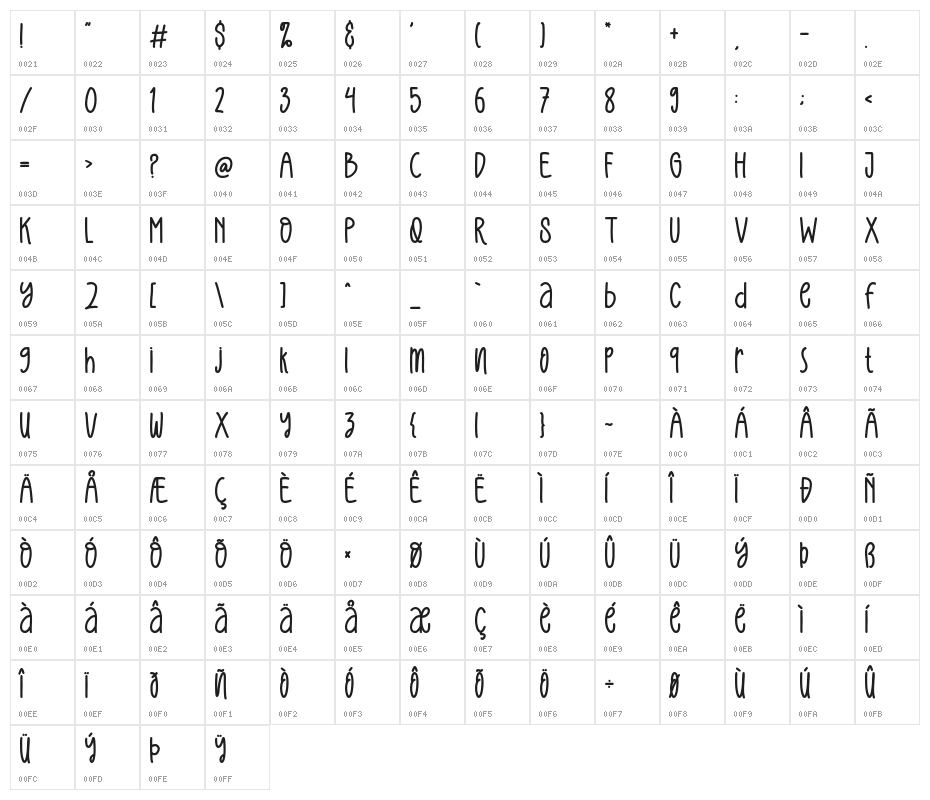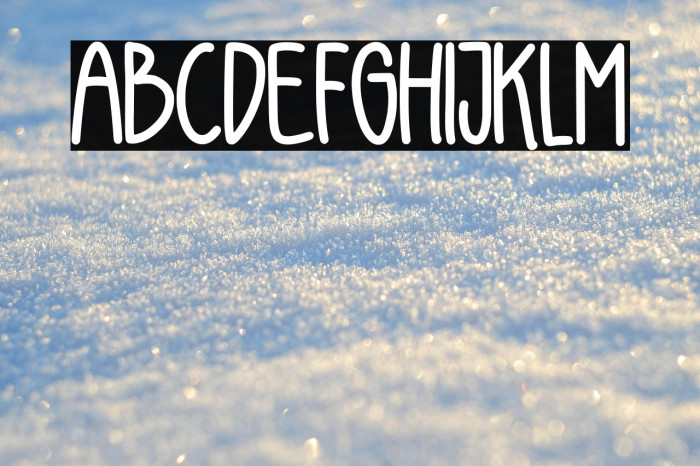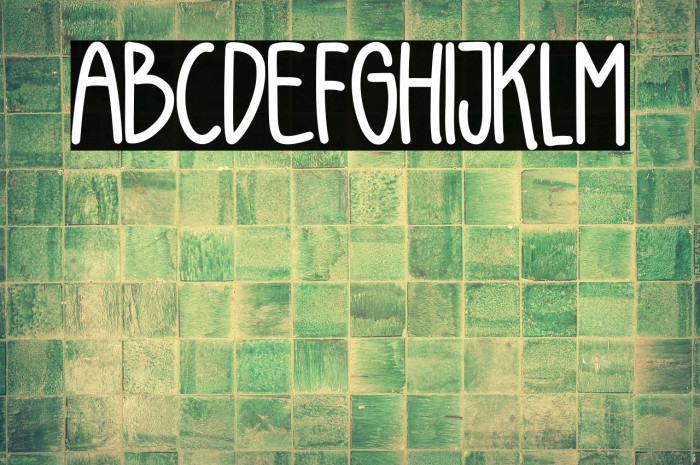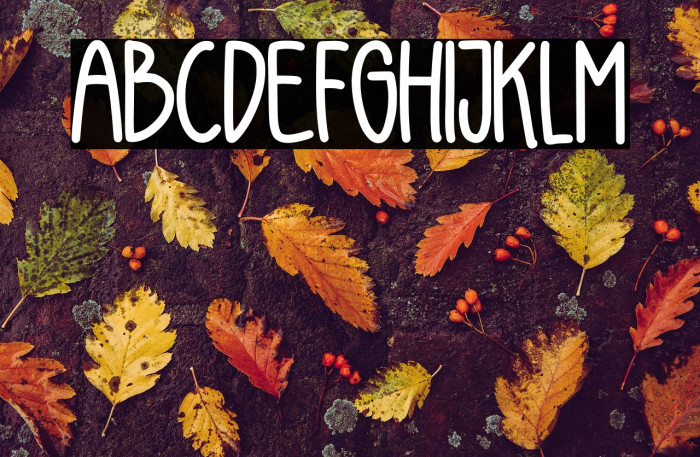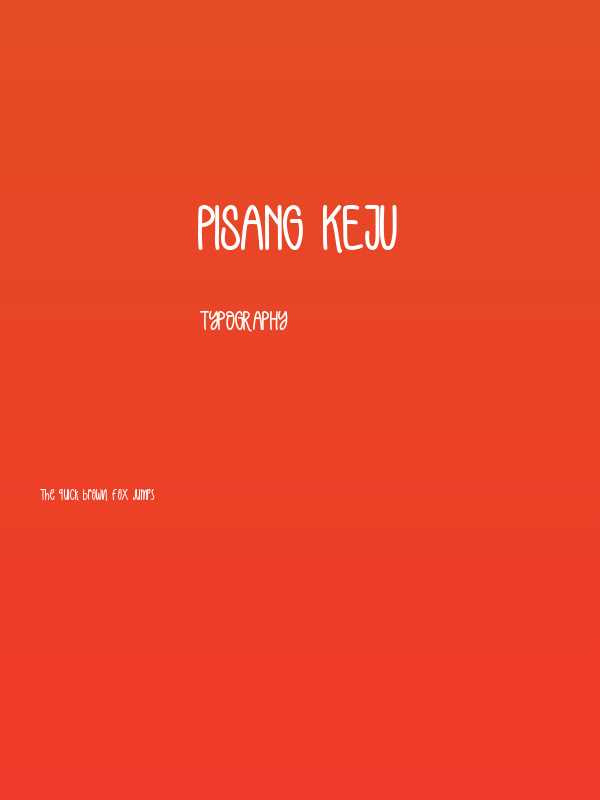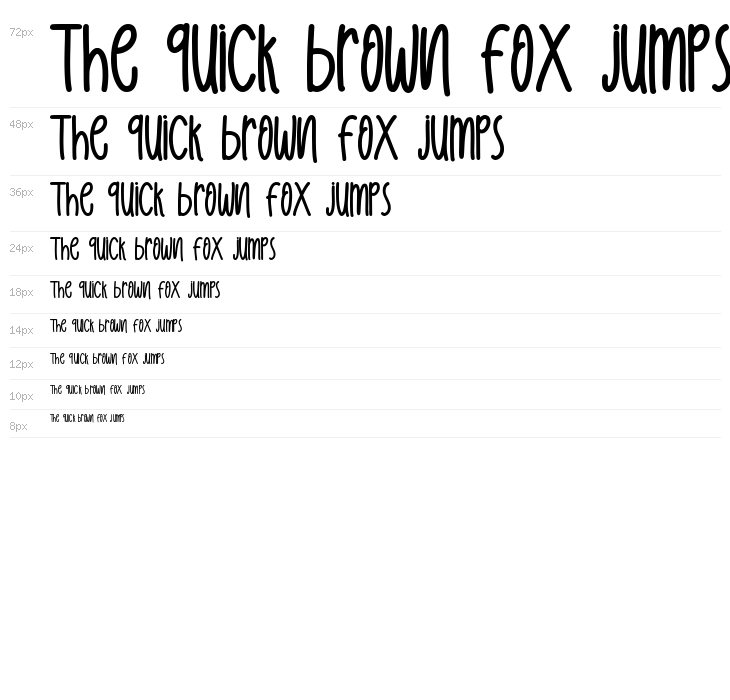
PISANG KEJU Font
PISANG KEJU Description
This font features a playful and casual handwritten style, characterized by its smooth, rounded edges and consistent stroke width. The letters are slightly elongated, giving a whimsical and friendly appearance. The uppercase and lowercase letters maintain a uniform height, contributing to a cohesive look. Numbers and special characters follow the same style, ensuring versatility across different uses. The overall design is approachable and informal, making it suitable for projects that require a personal touch.
| Use Case | Logos, Headlines, Informal Text |
| Proposed Projects | Ideal for greeting cards, children's books, playful branding, and social media graphics. |